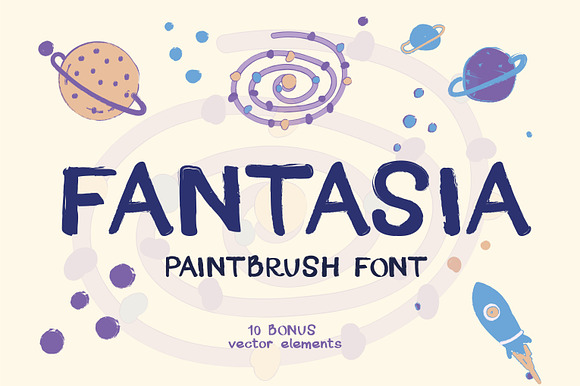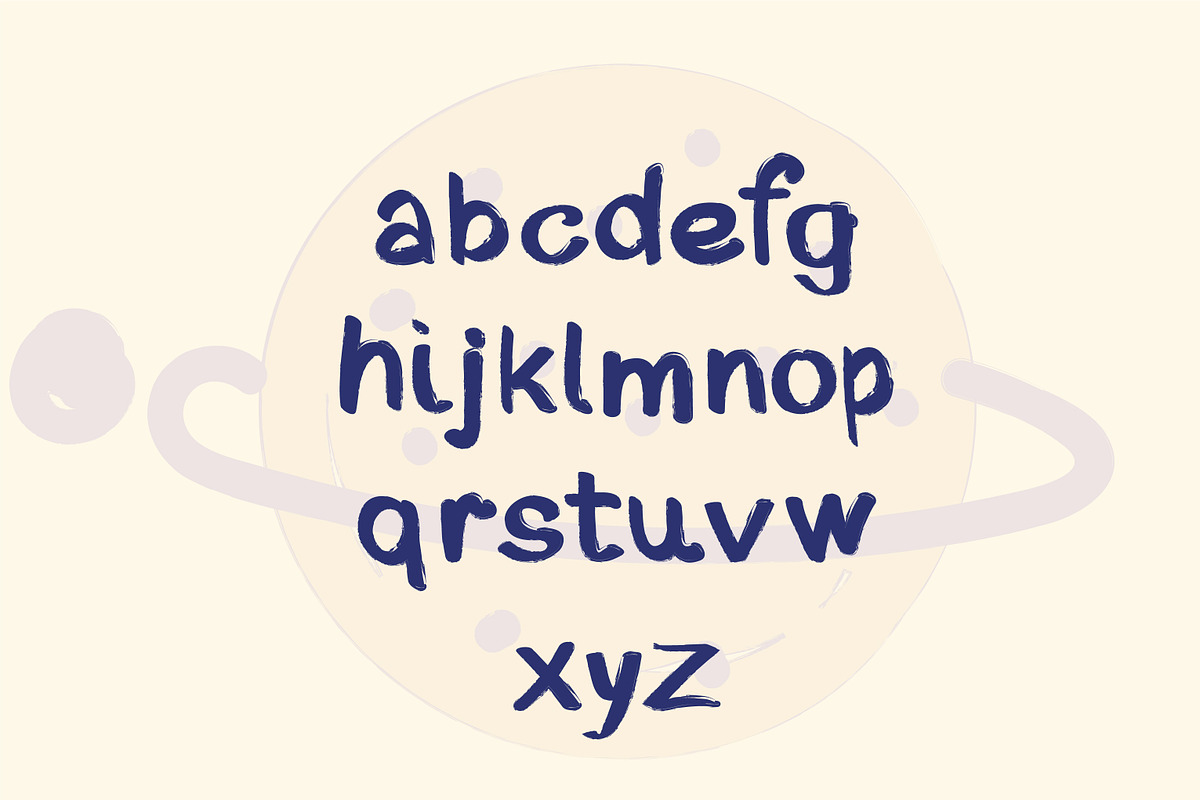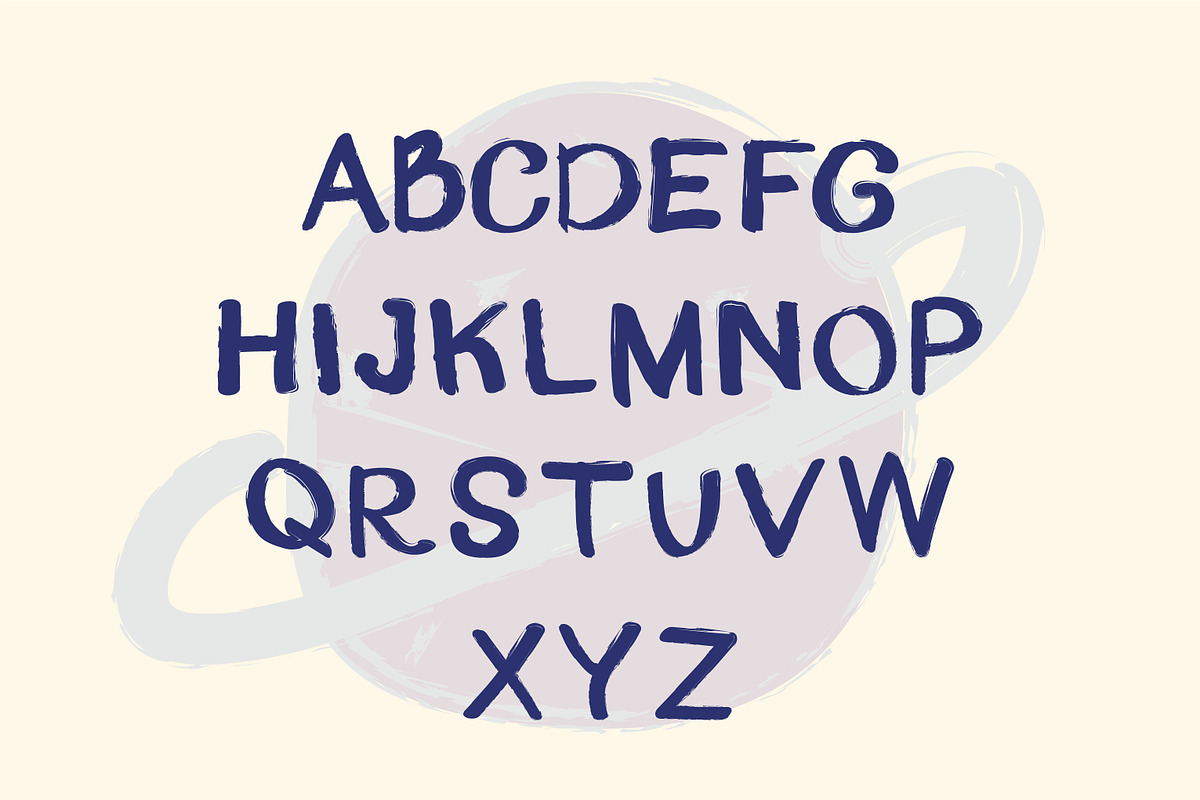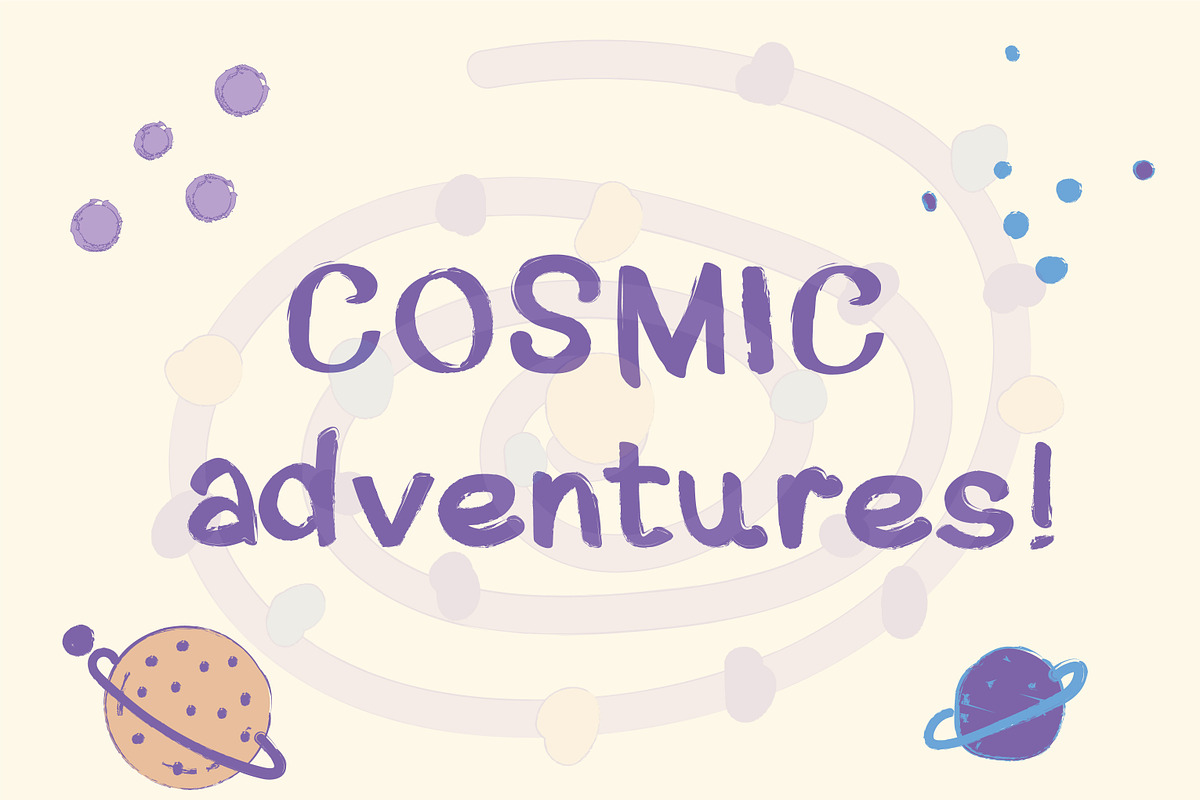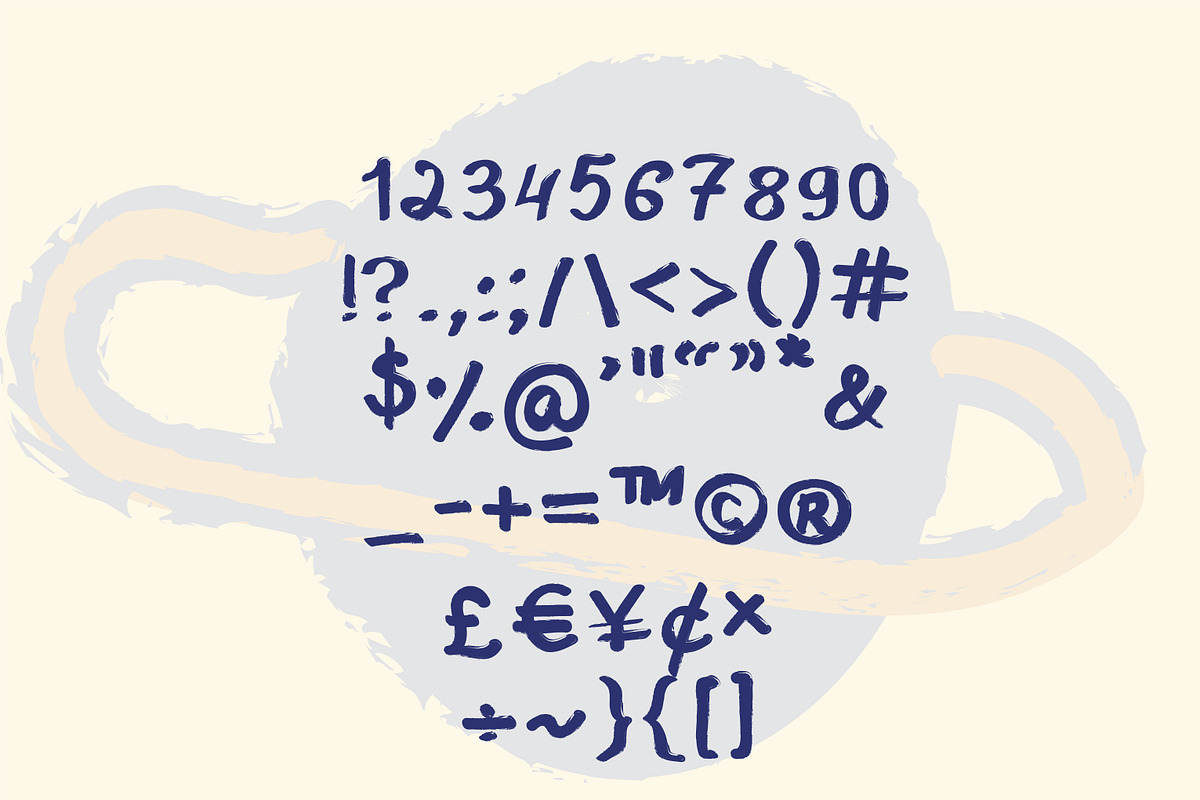
Fantasia Font + Bonus
Fantasia Paintbrush Font + 10 Bonus Vector Elements
This font represents freedom with its fresh brush strokes and unique texture. It takes you to a fantasy land where you can create your own magical world! Why limit yourself when you can dream BIG?
Fantasia is perfect for:
Grocery store design and coffee shops;
Packaging of food and cosmetics with an emphasis on naturalness;
Children's products and much more.